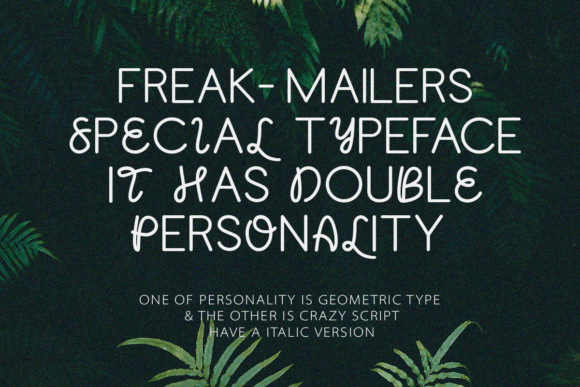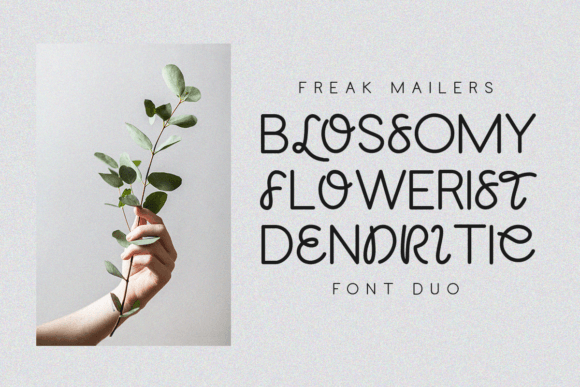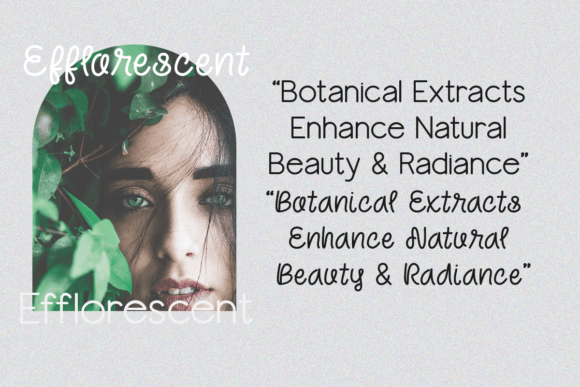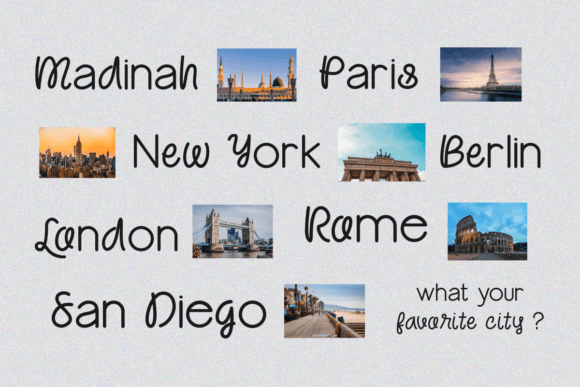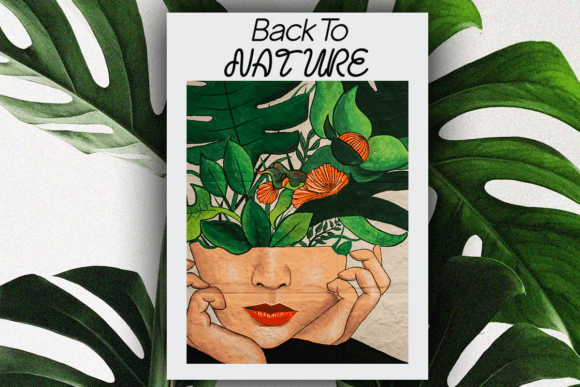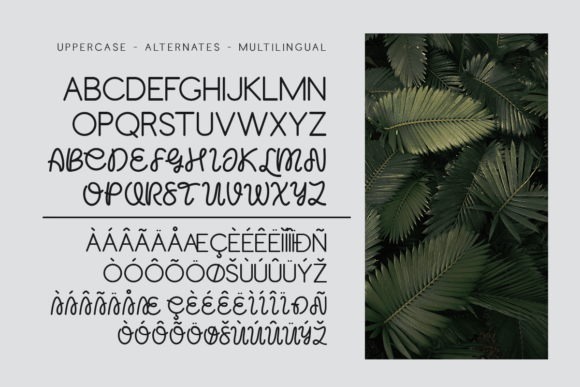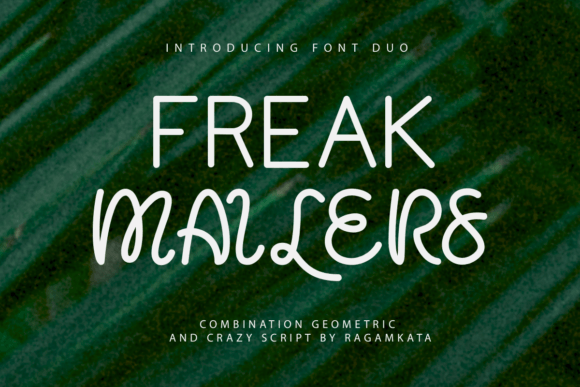
Freak Mailers Font: A Unique Combination of Rounded Sans Serif and Crazy Script Typeface
In the world of typography, fonts play a crucial role in conveying the tone and personality of a brand or design. With countless options available, finding the perfect font that stands out from the crowd can be a daunting task. However, if you’re looking for a font that combines the best of both worlds – clean and classic sans serif and crazy script typeface – look no further than Freak Mailers Font.
What is Freak Mailers Font?
Freak Mailers Font is a rounded combination font duo that brings together the simplicity of a sans serif typeface and the playfulness of a script typeface. This unique pairing makes it an excellent choice for designers and crafters looking to add a touch of personality to their work. The sans serif aspect of the font provides a clean and classic look, while the script typeface adds a dash of whimsy and creativity.
Key Features of Freak Mailers Font
• Rounded Combination Font Duo: Freak Mailers Font combines two distinct font styles – sans serif and script typeface – to create a unique and eye-catching pairing.
• Clean and Classic: The sans serif aspect of the font provides a clean and classic look, making it perfect for designs that require a touch of sophistication.
• Crazy Script Typeface: The script typeface adds a playful and creative touch to the font, making it ideal for designs that require a bit of personality.
• Versatile: Freak Mailers Font can be used for a wide range of design projects, including logos, headlines, book covers, magazines, and more.
Why Choose Freak Mailers Font?
So, why choose Freak Mailers Font over other font options? Here are a few compelling reasons:
• Unique and Eye-Catching: The combination of sans serif and script typeface makes Freak Mailers Font stand out from the crowd, ensuring your design grabs attention.
• Highly Versatile: The font’s versatility means you can use it for a wide range of design projects, from logos and headlines to book covers and magazines.
• Ease of Use: Freak Mailers Font is easy to use and pairs well with a variety of other fonts, making it simple to incorporate into your design.
• Customization: The font’s unique combination of styles allows for endless customization options, ensuring you can tailor it to your design needs.
Design Ideas Using Freak Mailers Font
Now that we’ve explored the features and benefits of Freak Mailers Font, let’s take a look at some design ideas to get you started:
• Logos: Use Freak Mailers Font to create a unique and memorable logo for your brand or business.
• Headlines: Add a touch of personality to your headlines with the script typeface, or keep it clean and classic with the sans serif aspect.
• Book Covers: Use Freak Mailers Font to create eye-catching book covers that stand out on bookshelves.
• Magazines: Add a touch of whimsy to your magazine designs with the script typeface, or keep it clean and classic with the sans serif aspect.
In conclusion, Freak Mailers Font is a unique and versatile font duo that combines the best of both worlds – clean and classic sans serif and crazy script typeface. With its ease of use, customization options, and high versatility, it’s an excellent choice for designers and crafters looking to add a touch of personality to their work. Whether you’re creating logos, headlines, book covers, or magazines, Freak Mailers Font is sure to make your design stand out from the crowd.